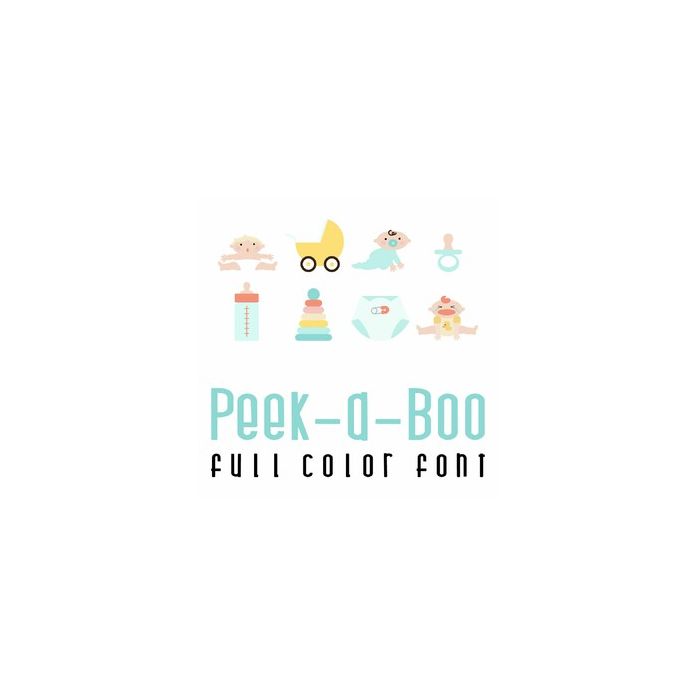
This adorable full color doodlebat font features 26 baby themed images. Perfect for cards, crafts, gifts, decor, scrap book pages, planner stickers and more!